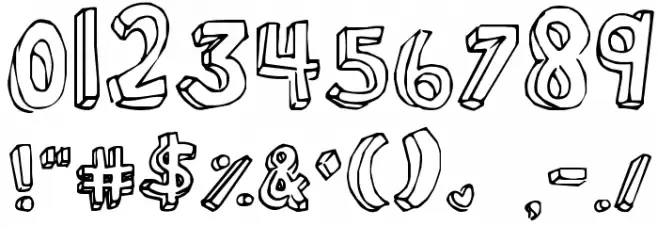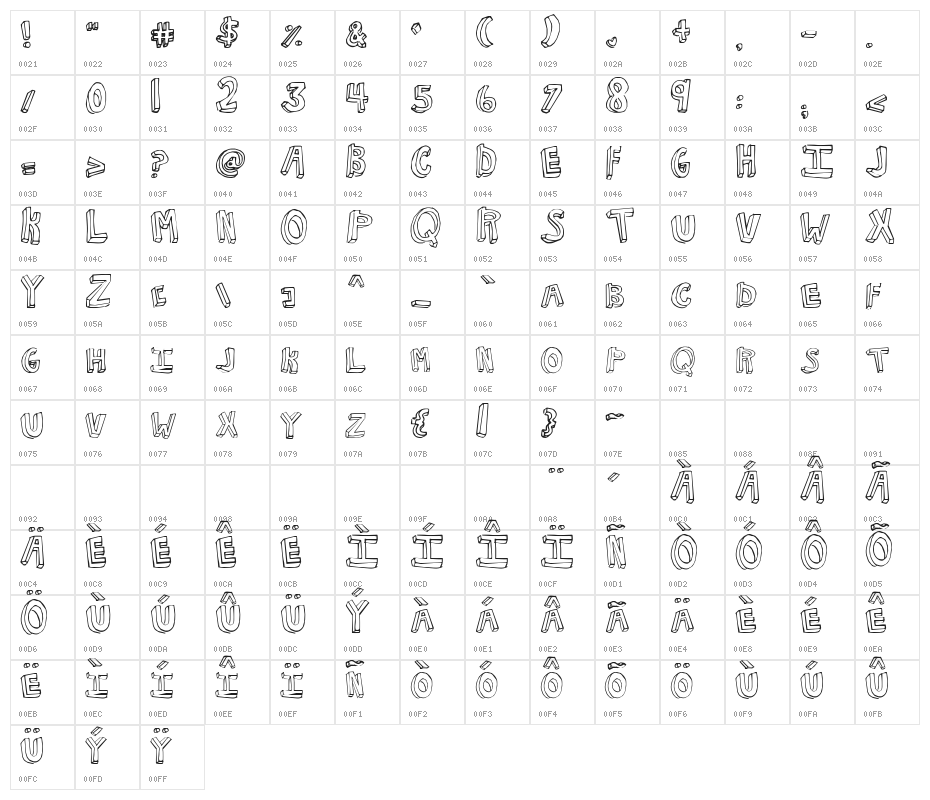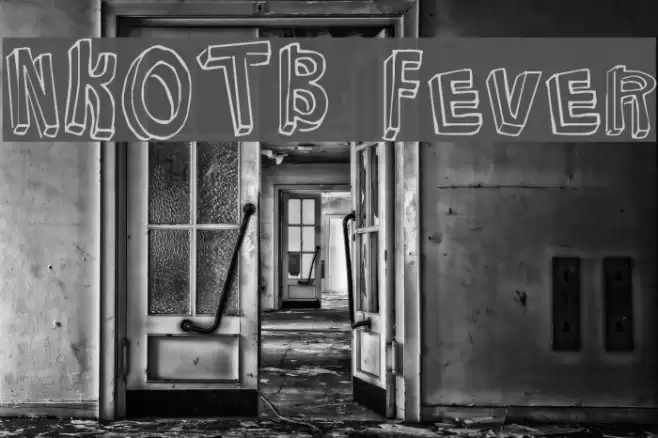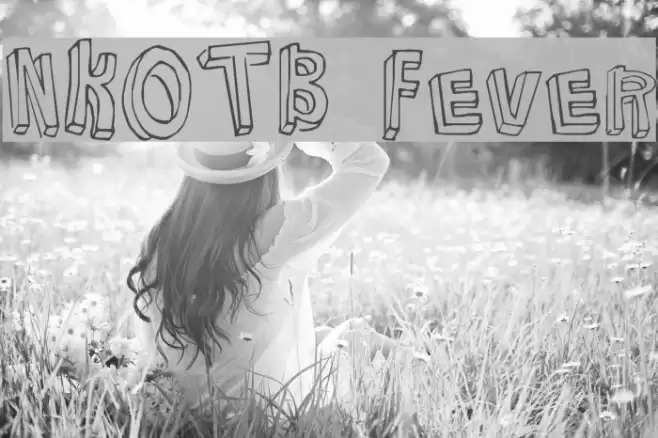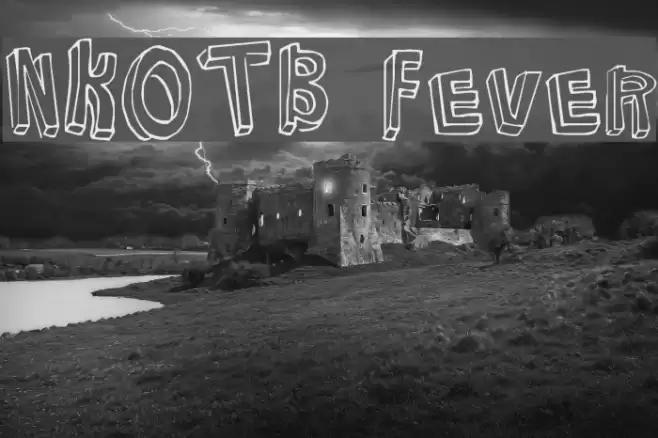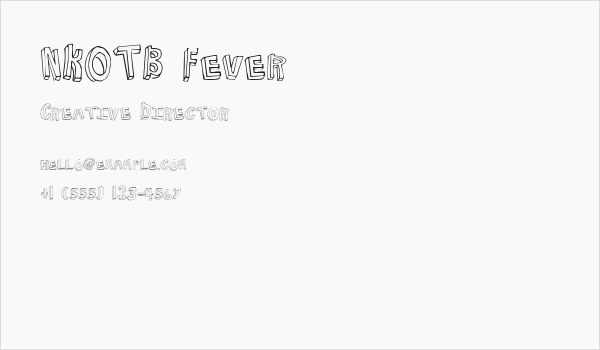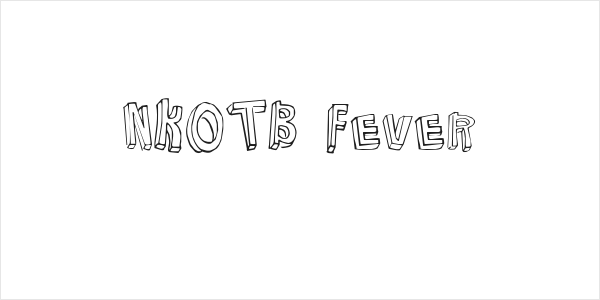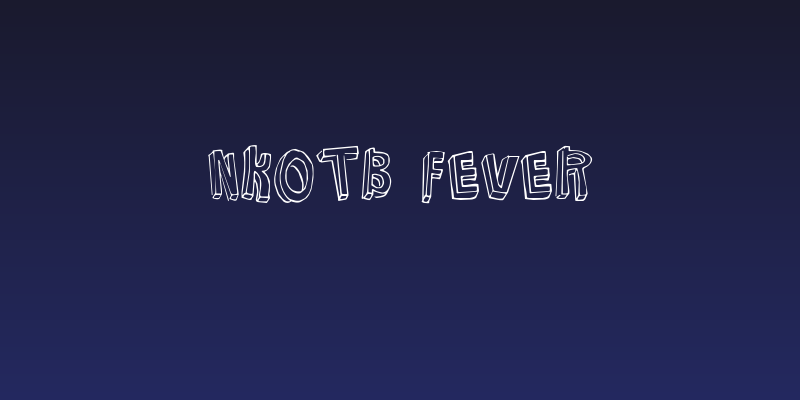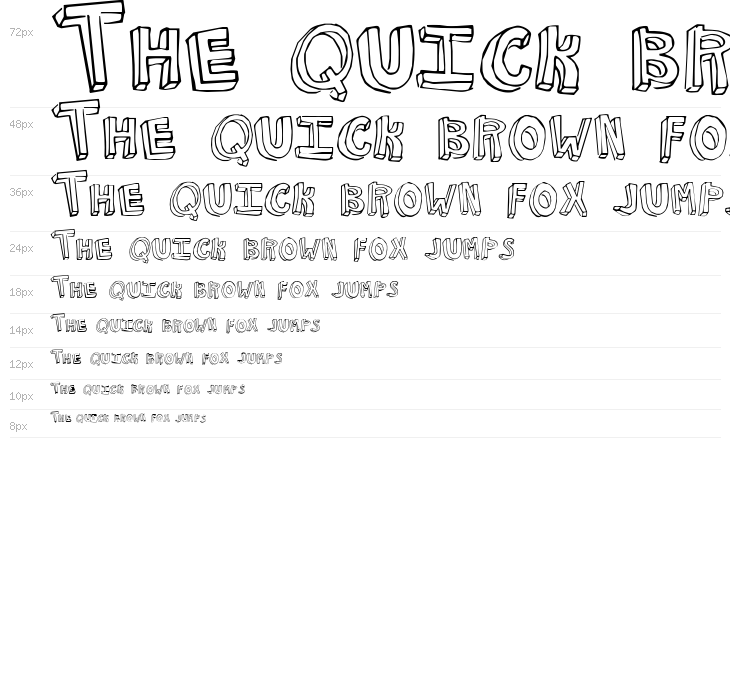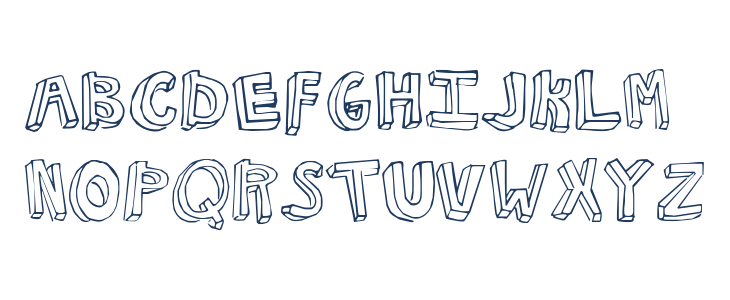
NKOTB Fever Font
NKOTB Fever Description
This font features a playful and bold 3D effect, with each character outlined to create a sense of depth and dimension. The letters are uppercase and lowercase, with a consistent style that emphasizes a hand-drawn, cartoonish aesthetic. The numbers and special characters follow the same design, making the font cohesive and versatile. The strokes are thick, with a medium contrast between the filled and outlined areas, adding to the dynamic appearance. The overall style is decorative and eye-catching, ideal for projects that require a fun and engaging visual element.
| Proposed Projects | Ideal for children's book covers, playful posters, comic strips, and creative branding. |